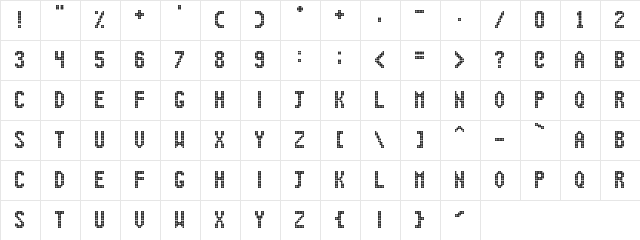
Digital Dot Roadsign Regular
| Designer | Darrell Flood |
Design Context for Digital Dot Roadsign Typeface
Digital Dot Roadsign has a distinctly futuristic character, with geometric precision and clean angles that feel at home in technology, gaming, and sci-fi contexts.
Pro Tip: Use Digital Dot Roadsign in combination with a neutral sans for body text. Let it define the brand voice in headlines while keeping reading comfortable elsewhere.